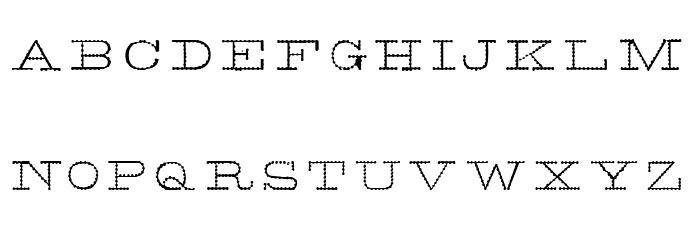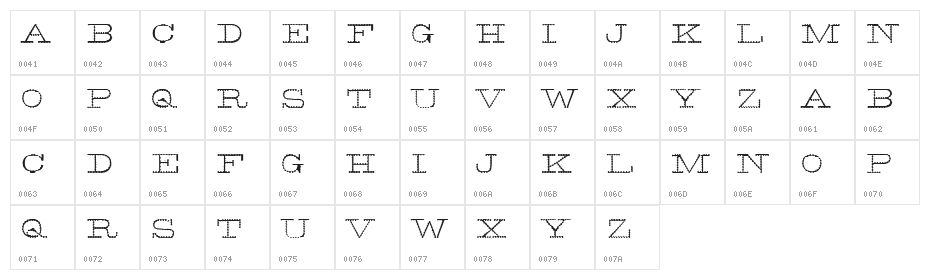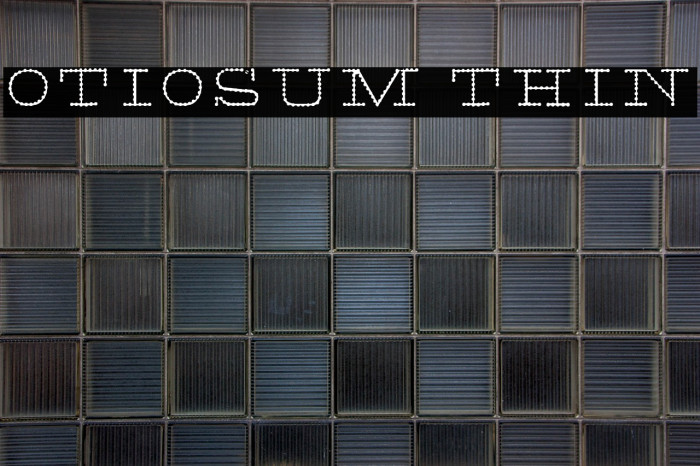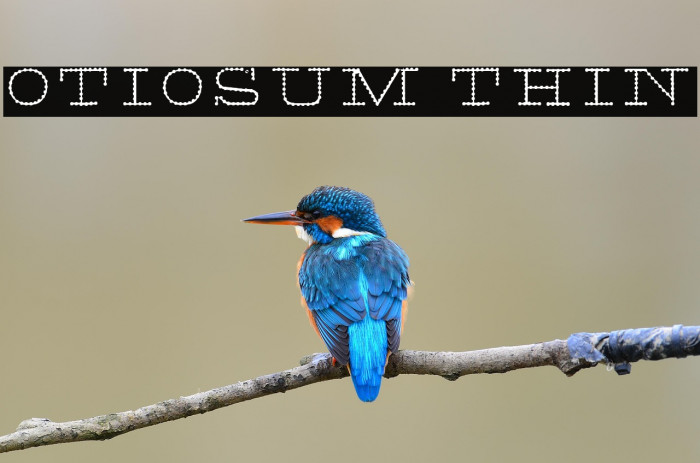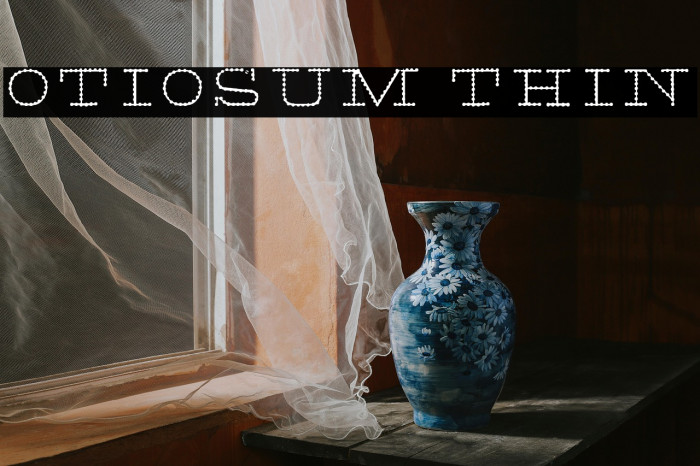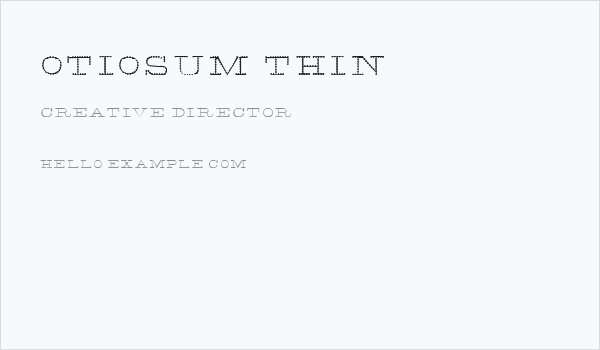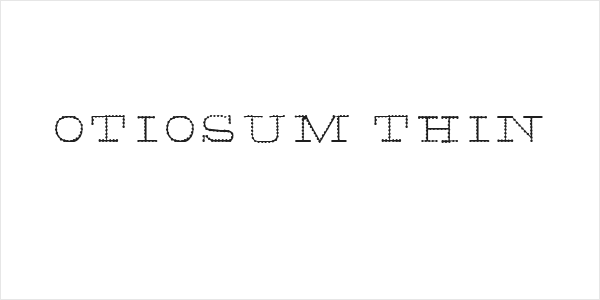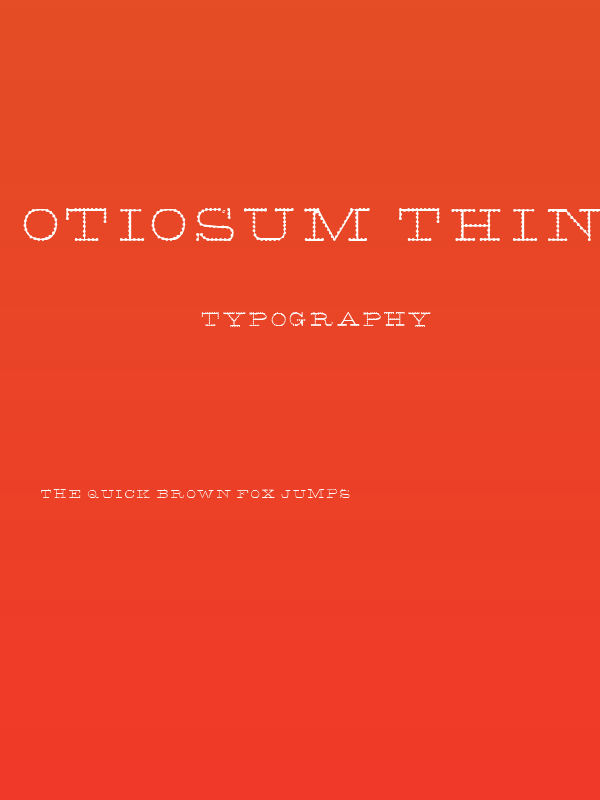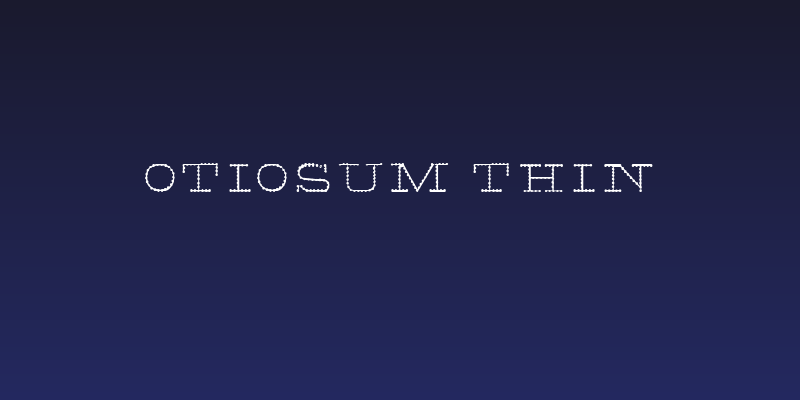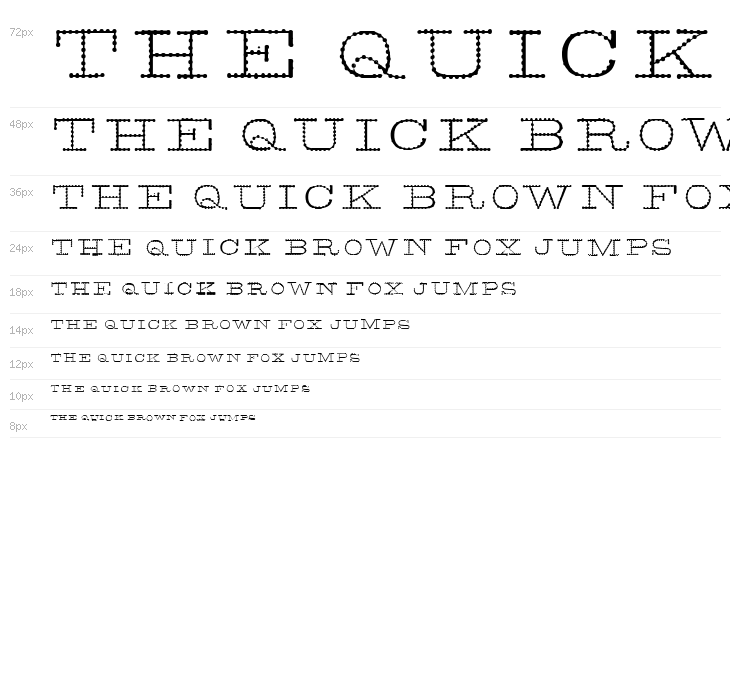
Otiosum Thin Font
Otiosum Thin Description
This font features a unique dotted outline style, giving it a distinct and playful appearance. The uppercase letters are evenly spaced with a consistent height, while the lowercase letters maintain a similar style, ensuring readability. The numbers and special characters follow the same dotted pattern, creating a cohesive look across all characters. The font's thin strokes and dotted design make it suitable for creative and decorative purposes, adding a touch of whimsy to any project. Its clean and modern aesthetic is balanced by the playful dots, making it versatile for various design needs.
| Use Case | Headlines, Logos, Decorative text |
| Proposed Projects | Ideal for creative projects such as children's books, playful branding, invitations, and decorative posters. |